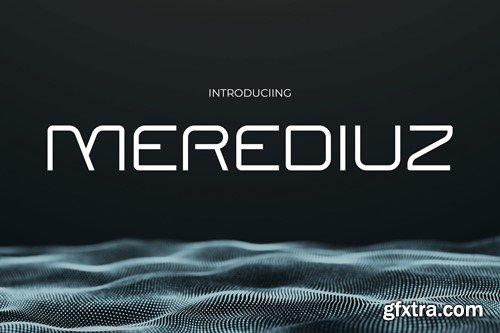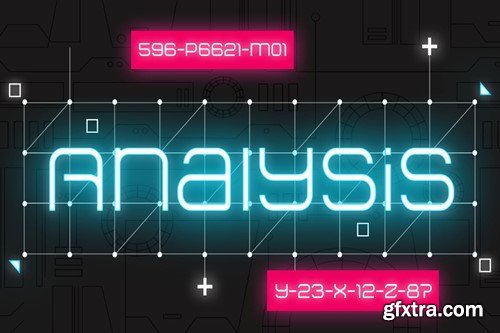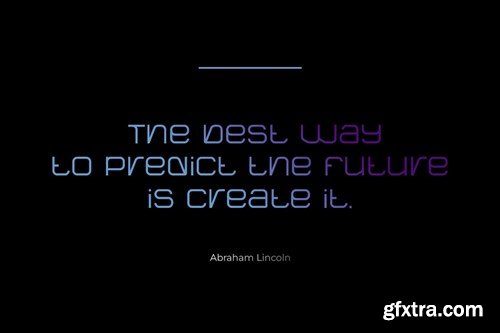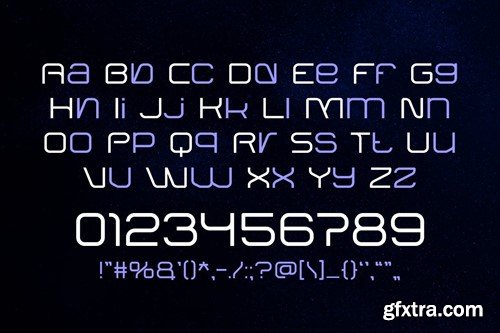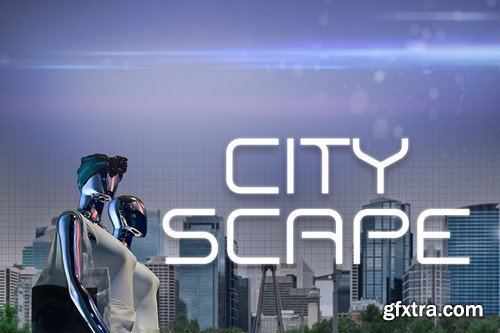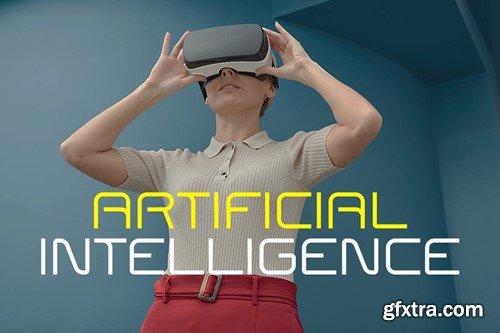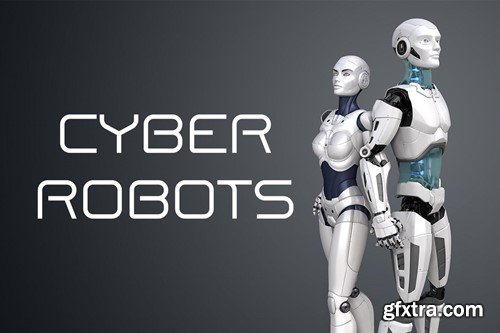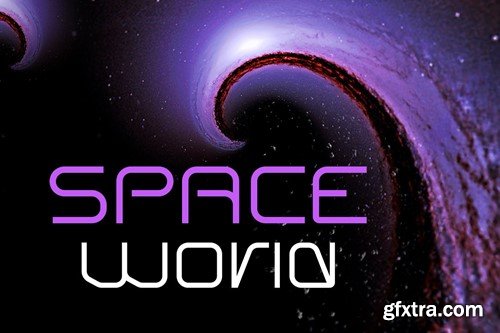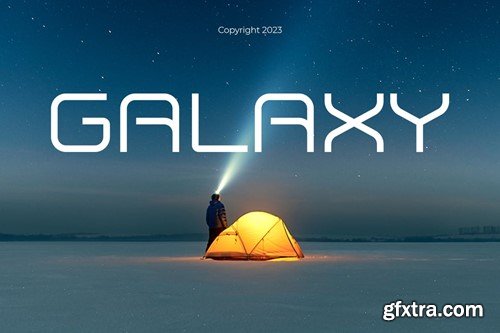
梅德里乌兹 - 现代未来主义字体 3KDSS3K
Merediuz - Modern Futuristic Font 3KDSS3K
Merediuz - Modern Futuristic Font
Merediuz embodies the essence of contemporary design, offering a sleek and modern aesthetic that seamlessly combines innovation with sophistication. This futuristic font is versatile, fitting various design needs, from logos and invitations to packaging and branding projects. Its clean lines and modern appeal make it ideal for posters, greetings, covers, and headline applications. Step into the future of design with Merediuz and watch your creations evolve.
• Basic Latin A-Z and A-z
• Numbers
• Punctuation